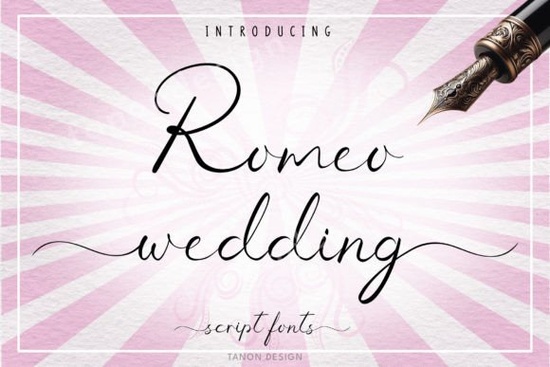
If you’re looking for a handwritten calligraphy font that brings warmth and elegance to your wedding-themed projects, Romeo Wedding Font is worth a closer look. It’s designed with flowing strokes and graceful curves the kind of typeface that feels personal, like something written by hand for a special occasion. Whether you’re customizing mugs for bridesmaids, designing invitations, or creating printable wall art for couples, this font adapts beautifully without losing its charm.
What kinds of projects work best with Romeo Wedding?
This font shines in personal, sentimental, or celebratory designs. Think:
- Wedding invitations and save-the-dates the script pairs well with floral borders or minimalist layouts.
- Personalized gifts engraved cutting boards, tote bags, or framed quotes for newlyweds.
- Digital planners and social templates use it for quote graphics or milestone posts.
- Print-on-demand products t-shirts, mugs, and stickers where a soft, romantic vibe fits.
It’s not overly ornate, so it stays readable even at smaller sizes. That’s a big plus if you’re layering text over photos or using it on merchandise where clarity matters.
Romeo Wedding sits comfortably between formal and friendly. It’s elegant but not stiff, romantic but not childish. You can dress it up with gold foil textures or keep it simple on kraft paper it holds its own either way.
Any tips for pairing it with other fonts?
Avoid pairing it with another script. Two flowing fonts together can feel cluttered. Instead, try a clean sans-serif like Montserrat, Lato, or even a classic serif like Playfair Display for contrast.
Here’s a quick combo idea:
- Headline: Romeo Wedding (for names or short phrases)
- Body text: A simple sans-serif (for dates, addresses, instructions)
You can also experiment with weight use Romeo Wedding in bold for emphasis, then switch to thin or regular for supporting text. The key is balance: let the script font be the star, and keep everything else quiet and supportive.